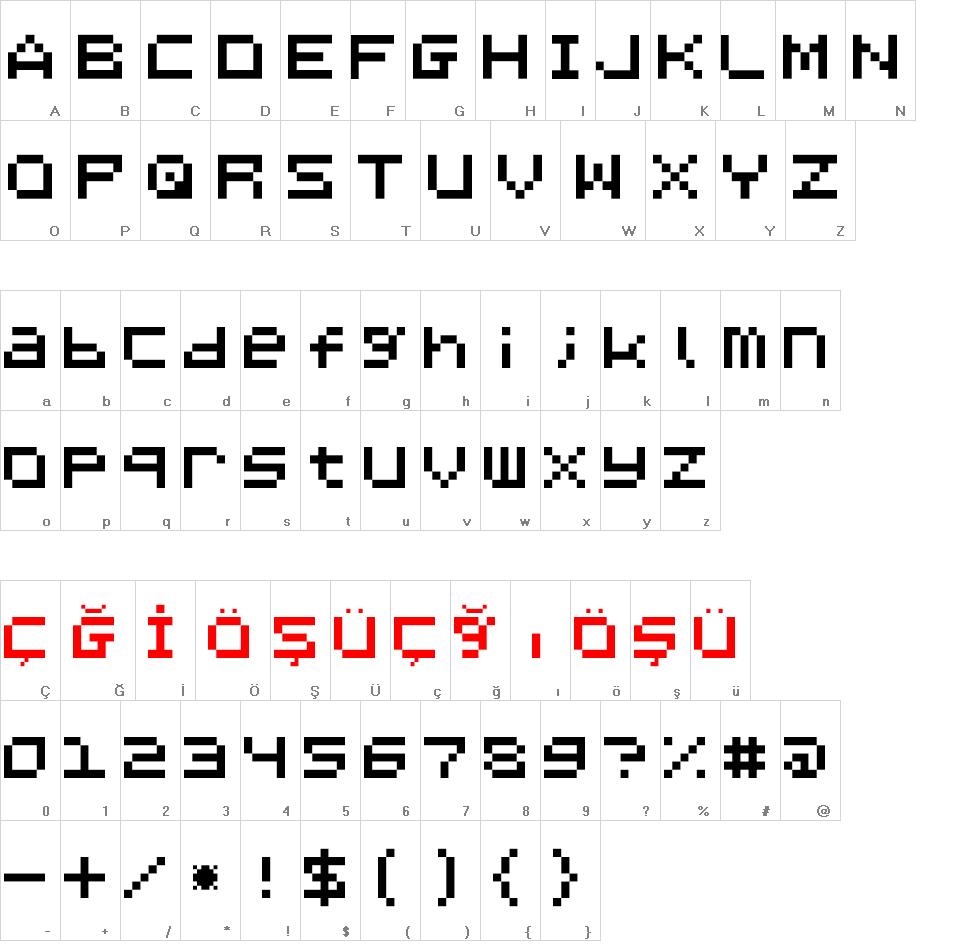
Reblinking VIP font
The new version of Reblinking, by me, with more glyphs to bring you fun for making your great pictures and showcase the awesome game facts. I hope you enjoy it and thanks for downloading!